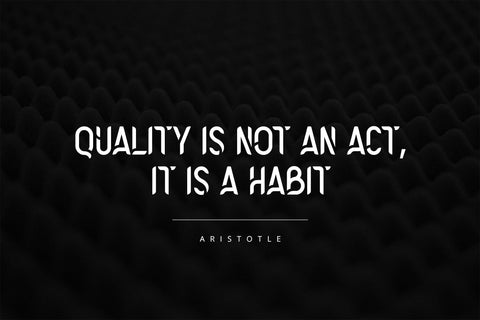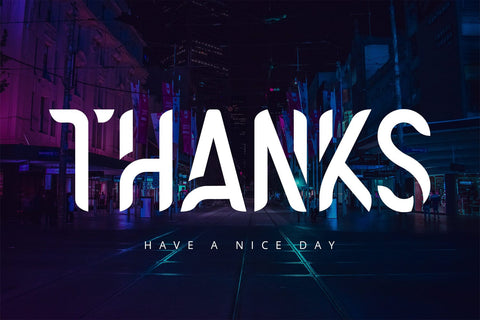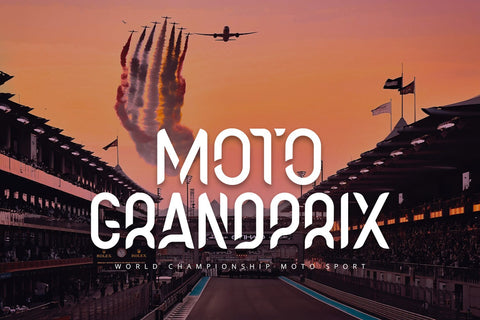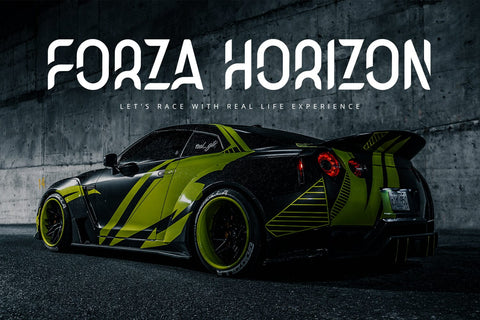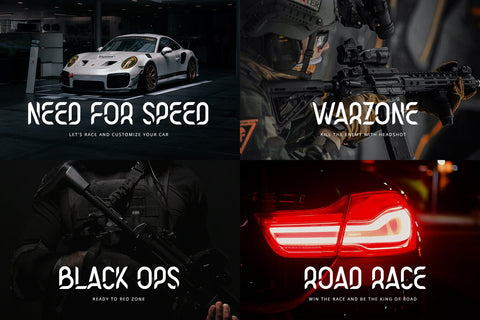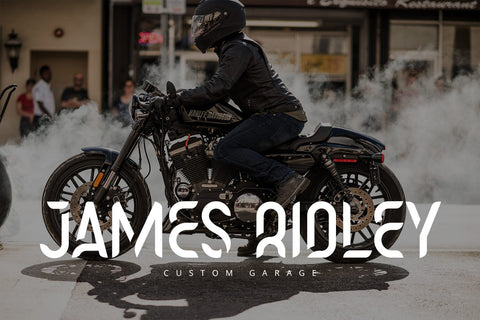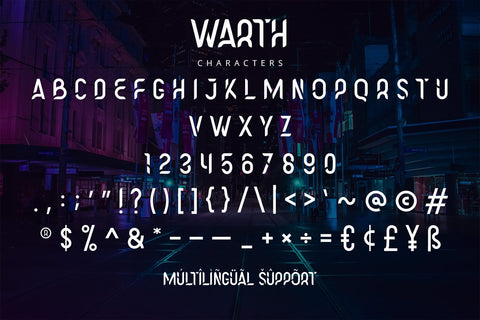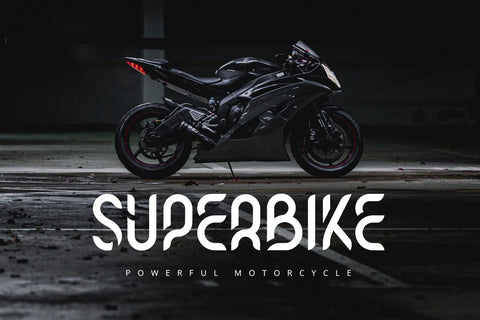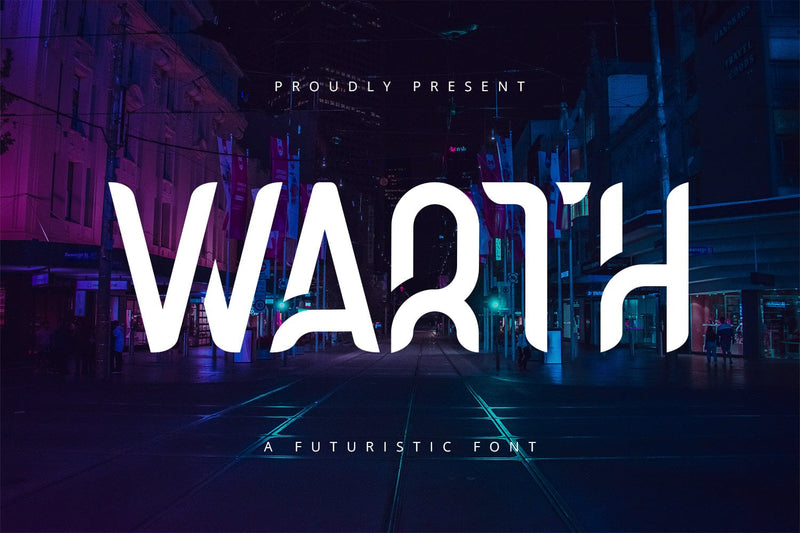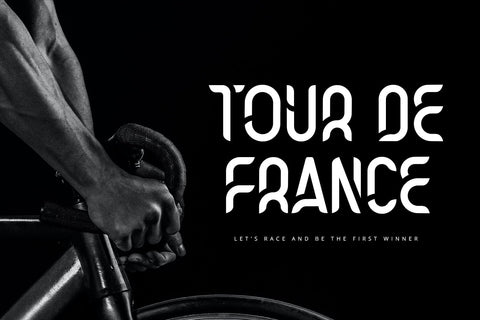
Warth - Futuristic Display Font
Warth is a futuristic display font with modern and sporty feels. It will be perfectly used for Branding, Logo Design, Lettering, Logotype, Clothing, Poster, magazine, packaging, posters, shopping bags, t-shirts, book covers, photography, special events and other design project.